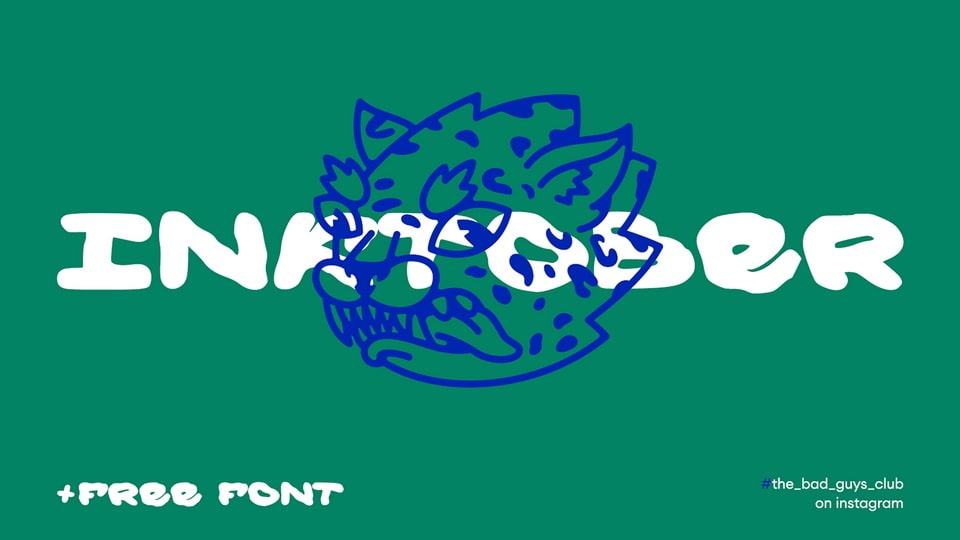
Scary Club Font › Fontesk
Download Scary Club font, a simple yet captivating grungy hand-drawn typeface that captures the essence of street art and urban expression. Scary Club font is ideal for logos, posters, album covers, or any design where you want to infuse a sense of rebellion and street-style flair.